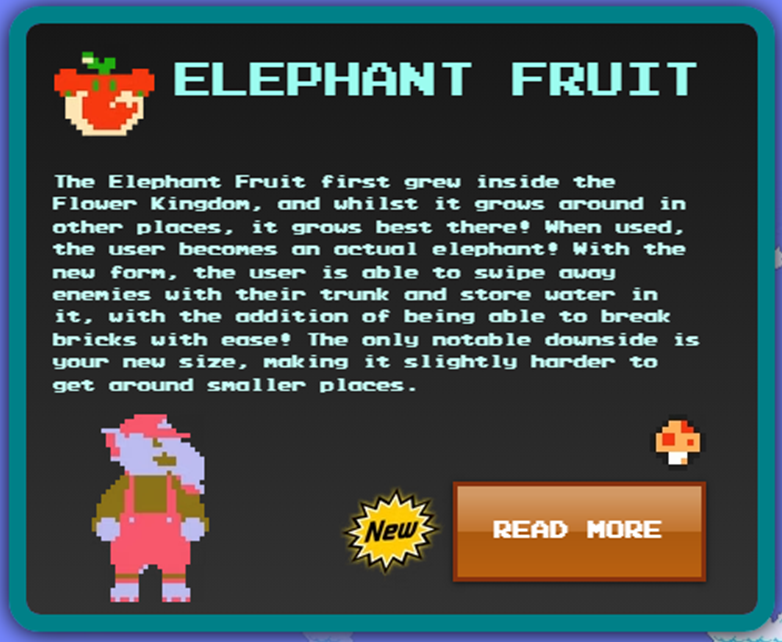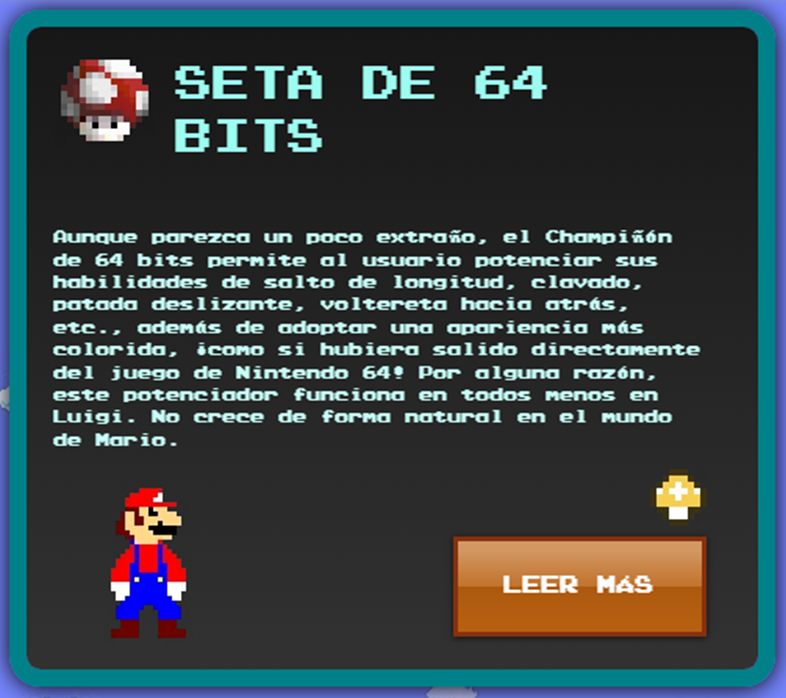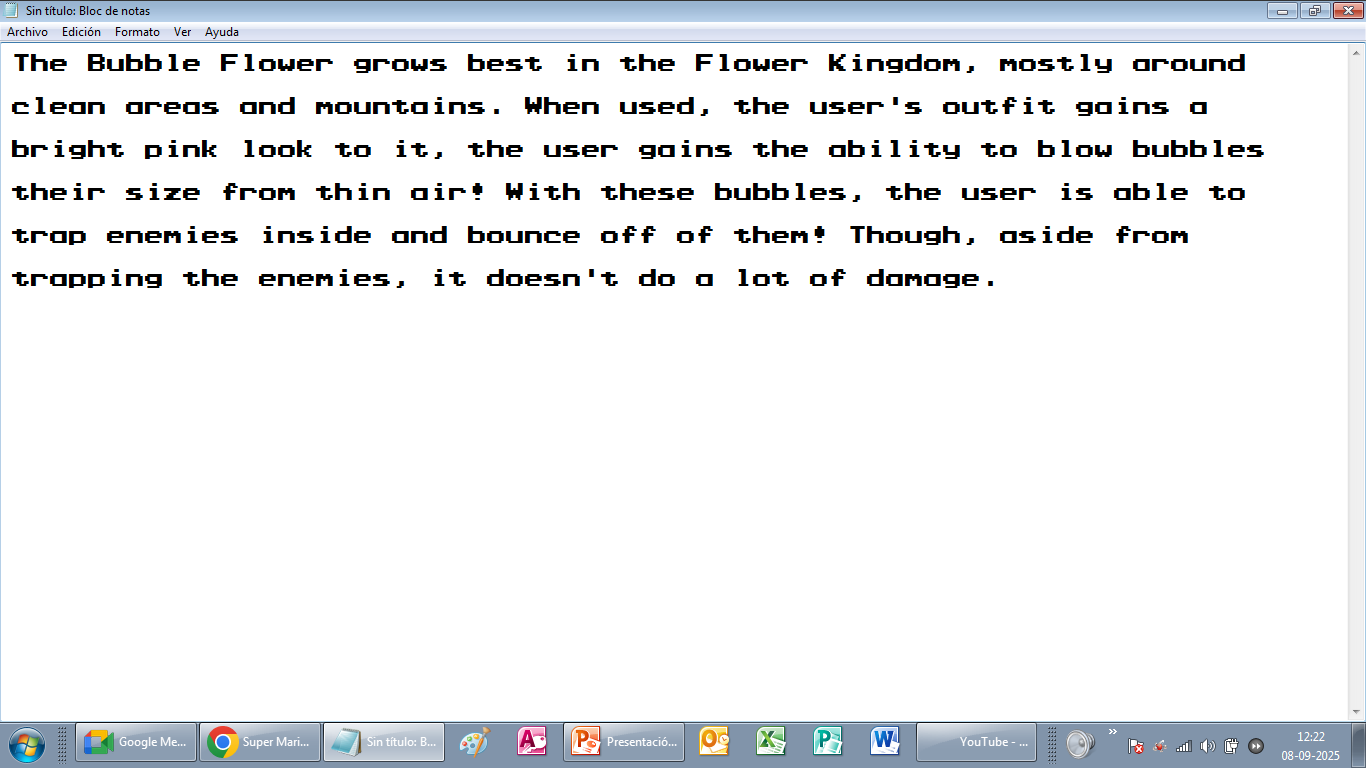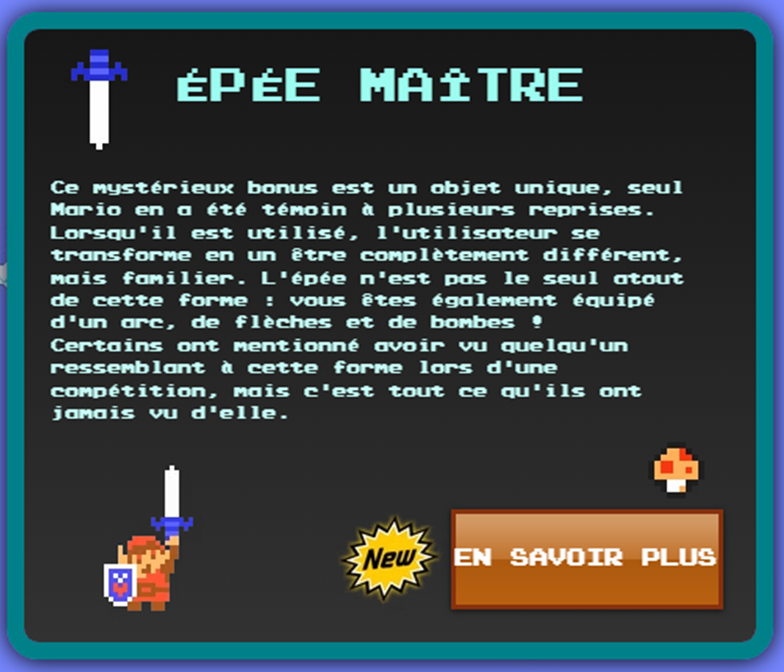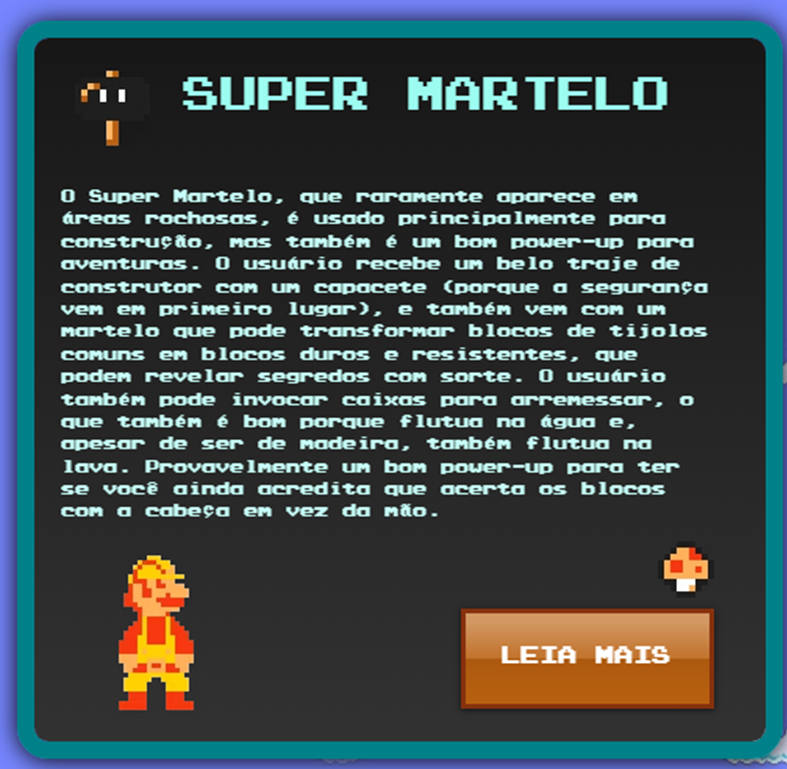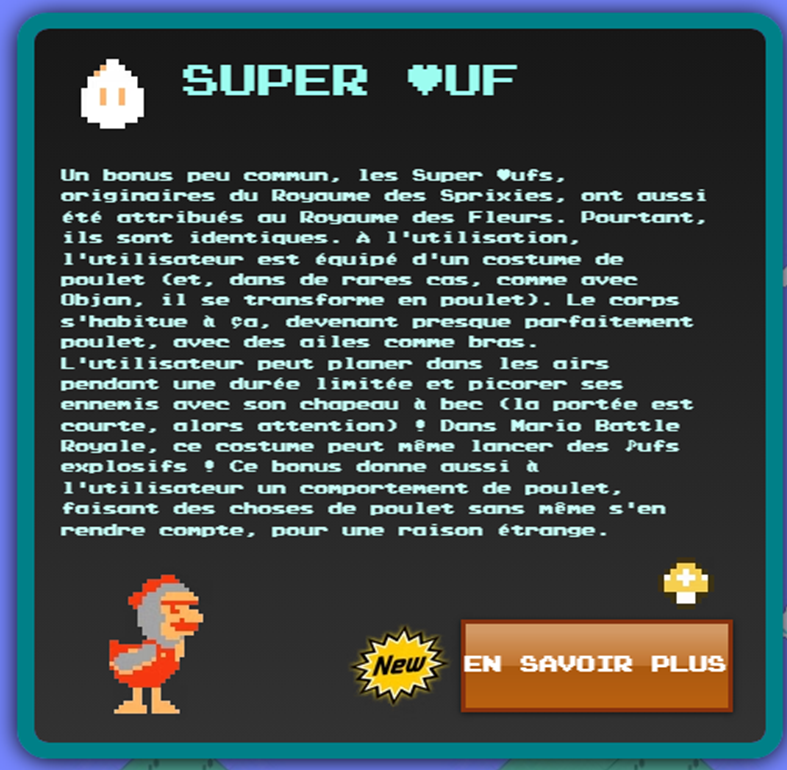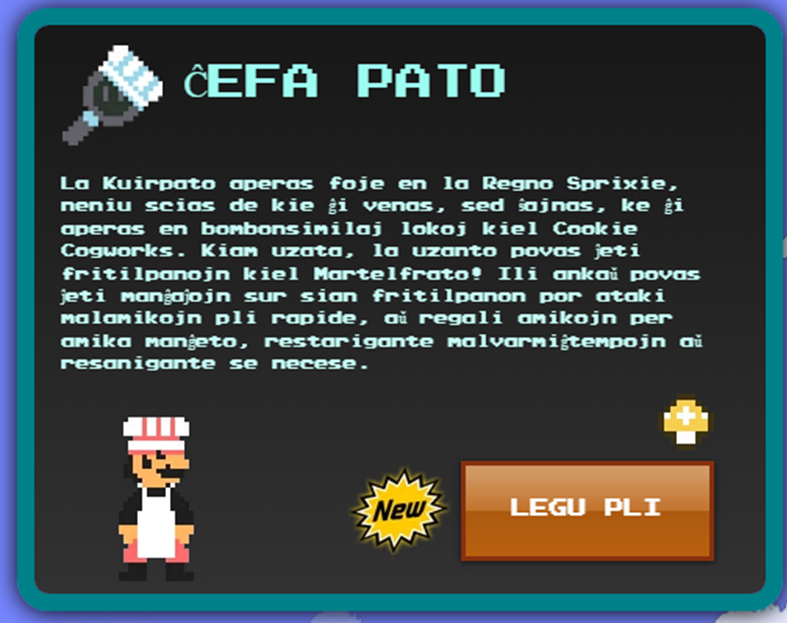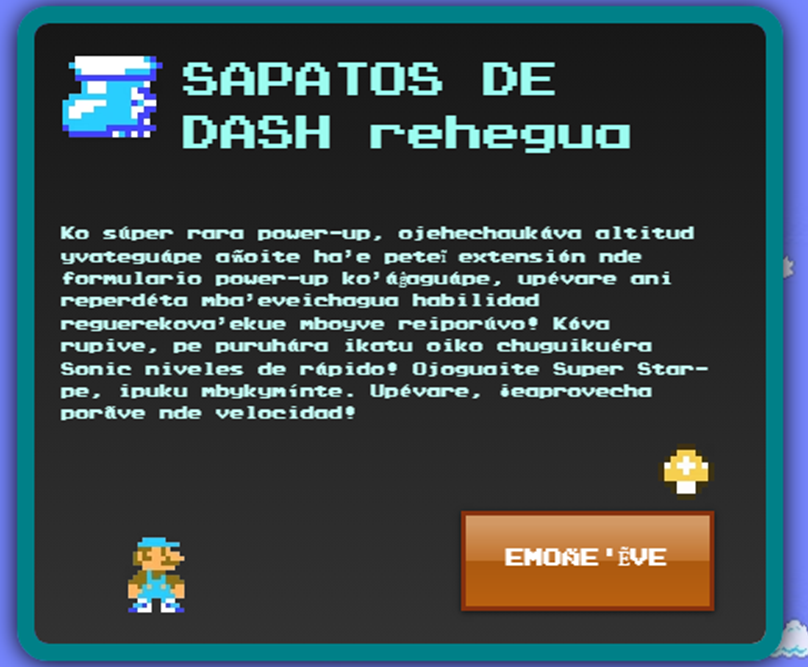
15897 glyphs shared? Now that´s what i call a perfection!
I tried to replicate that font and it looked good
And it even has accents
Not really spaced enough, but you did do this in Windows 7 and I have Windows 10 so yeah please make it compatible
Yeah, that's a littile broken because it's REALLY big and Windows 8/10 probably caused that problem, so if it was a bit smaller I would at least give it 5 more but 5/10
Just the spacing, which needs to be pretty accurate actually.
@1urphy The font has very accurate (mono)spacing and i also made up a big wall glyph so the top of the font doesn´t break
And it has separate layers
''very (almost) accurate spacing''
Also that wowie zowie glyphs was a onomatopoeia for when someone ate Elephant Fruit.
Graves and circumflexes were here too
and also the cedilla was here
for those who are asking about esperanto:
i made these glyphs myself since they didn´t make it to the original font